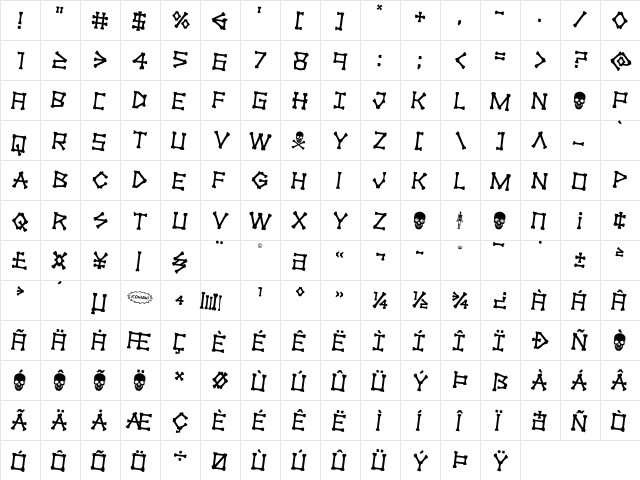
xBONES Rotated 2 Regular
Design Context for xBONES Rotated 2 Typeface
xBONES Rotated 2 is a composed and adaptable typeface that performs quietly and consistently across a wide range of design contexts.